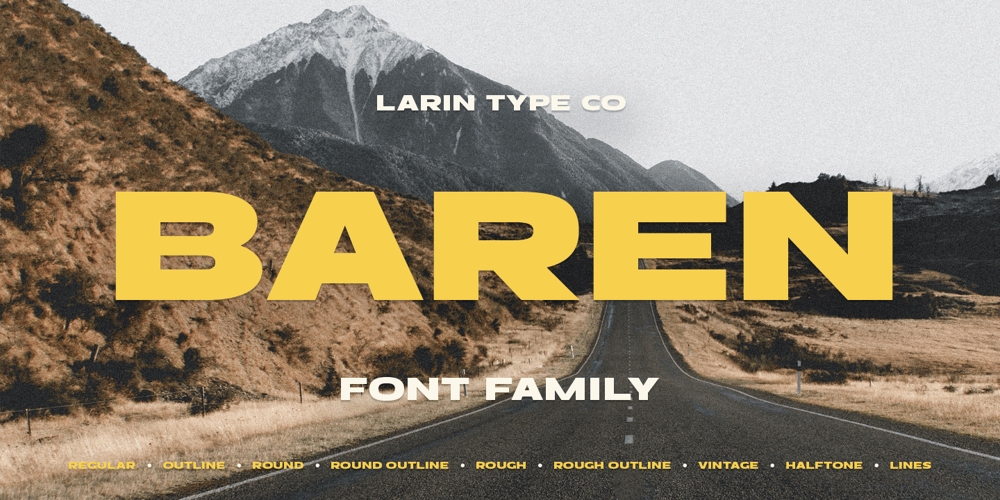
Baren
Baren font
Baren Font Family was designed by Pavel Larin and published by Larin Type Co. Baren contains 9 styles and family package options. Baren is a bold sans serif font, it will look great both in modern design and in vintage projects. This font family has only Capital letters and includes 9 styles: Regular, Outline, Round, Round Outline, Rough, Rough Outline, Vintage, Halftone, Lines style. In the Vintage, Halftone and Lines style, upper and lower sets have different textures.